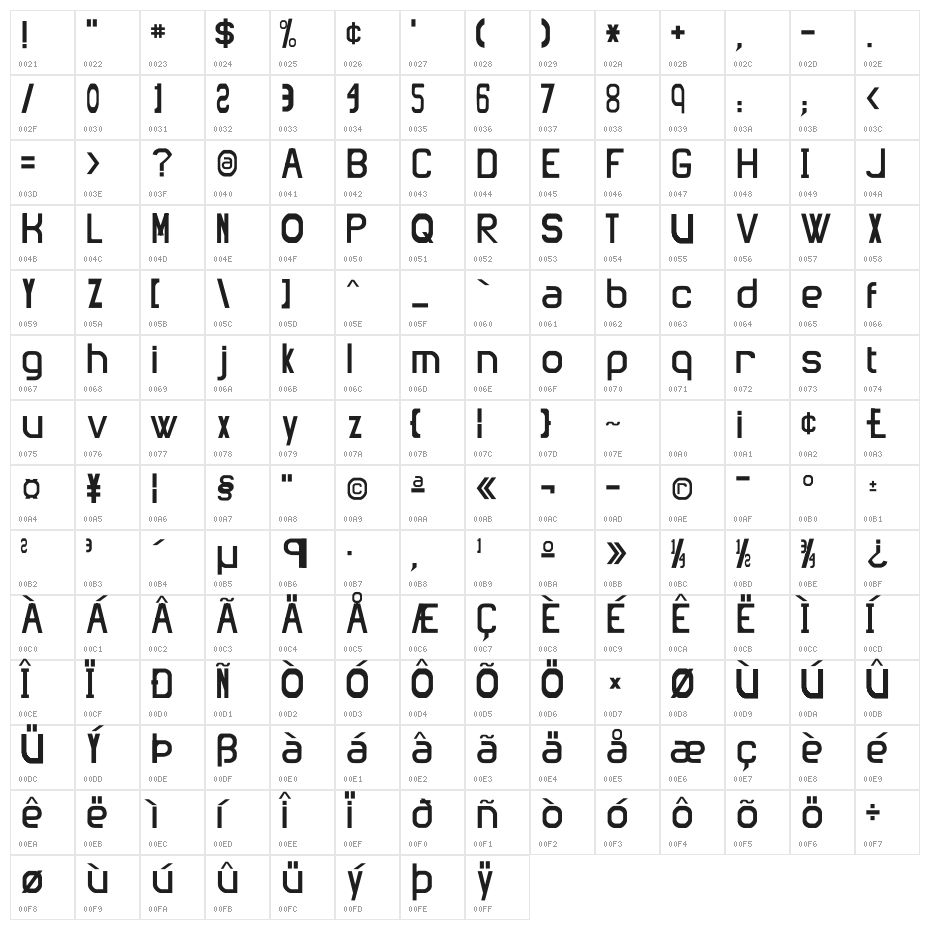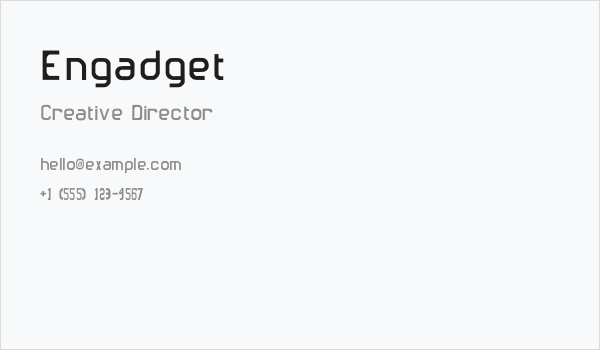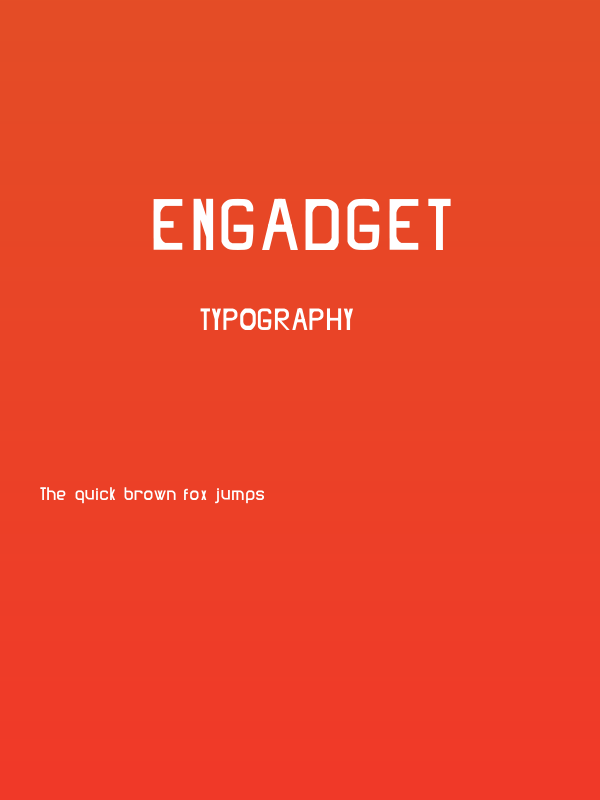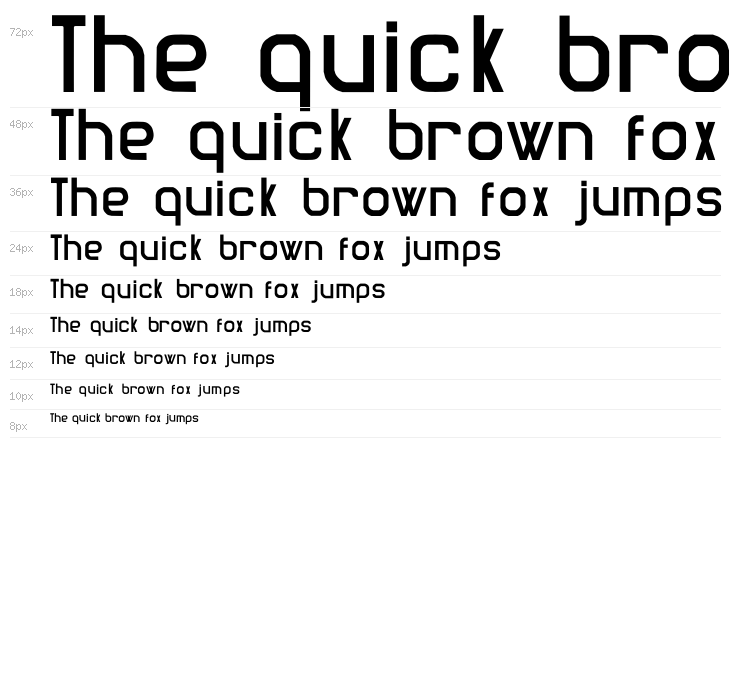
Engadget Font
Engadget Description
This font features a bold and geometric design, characterized by its strong, angular lines and modern aesthetic. The uppercase letters are particularly striking, with a uniform height and consistent stroke width that conveys a sense of stability and strength. The lowercase letters maintain the geometric theme, offering a cohesive look across both cases. Numbers are distinct and clear, with a slightly futuristic feel. Special characters are well-integrated, maintaining the overall bold and structured appearance. This font is ideal for projects that require a modern and impactful visual presence.
| Proposed Projects | Ideal for branding, headlines, posters, and digital interfaces where a strong, modern aesthetic is desired. |